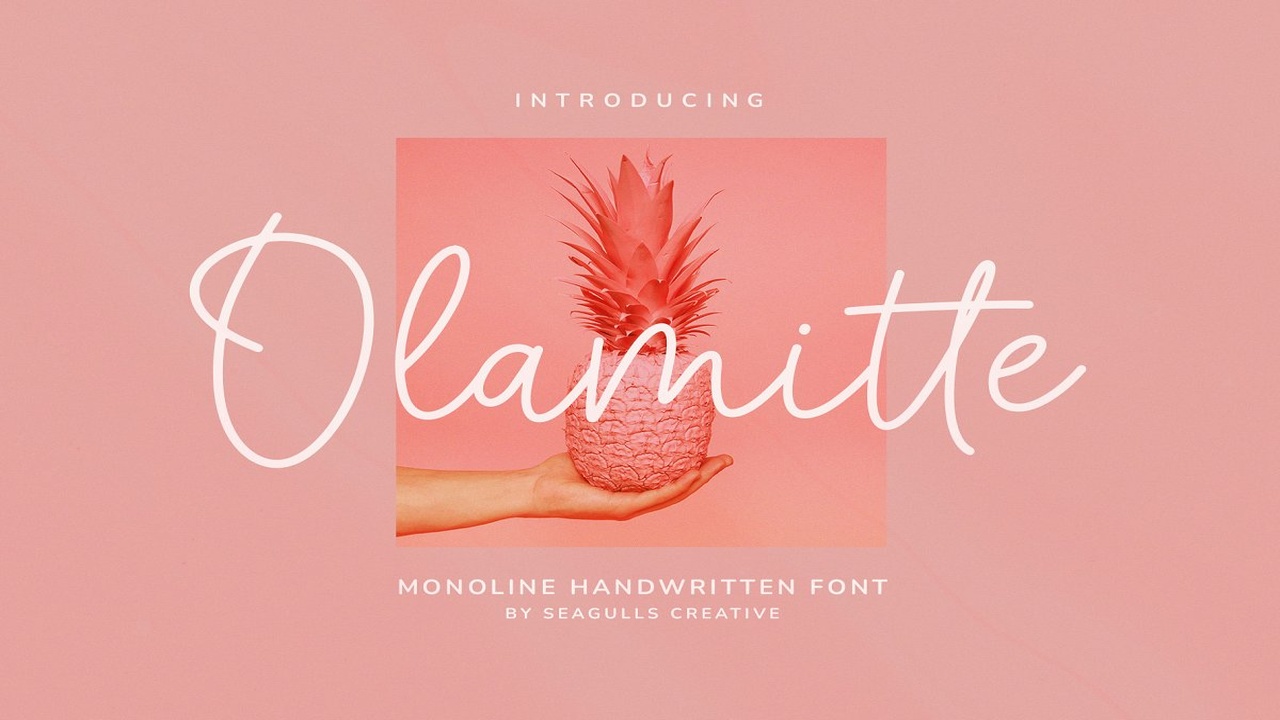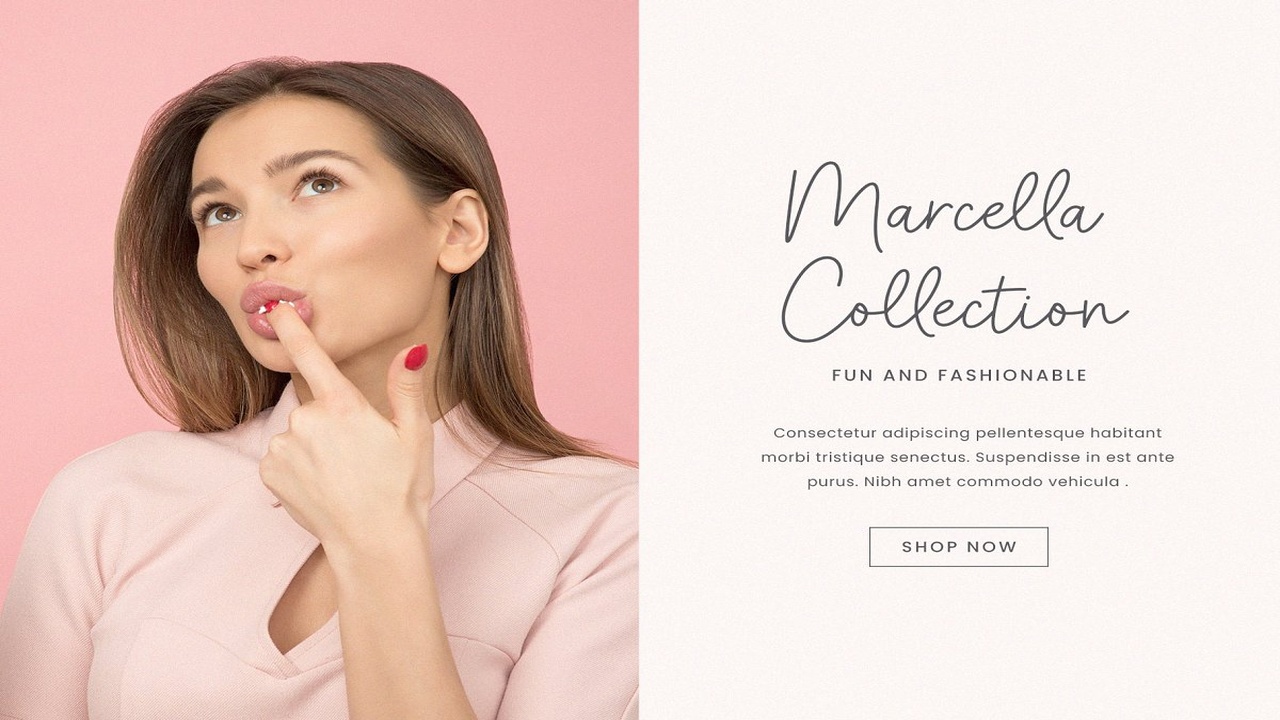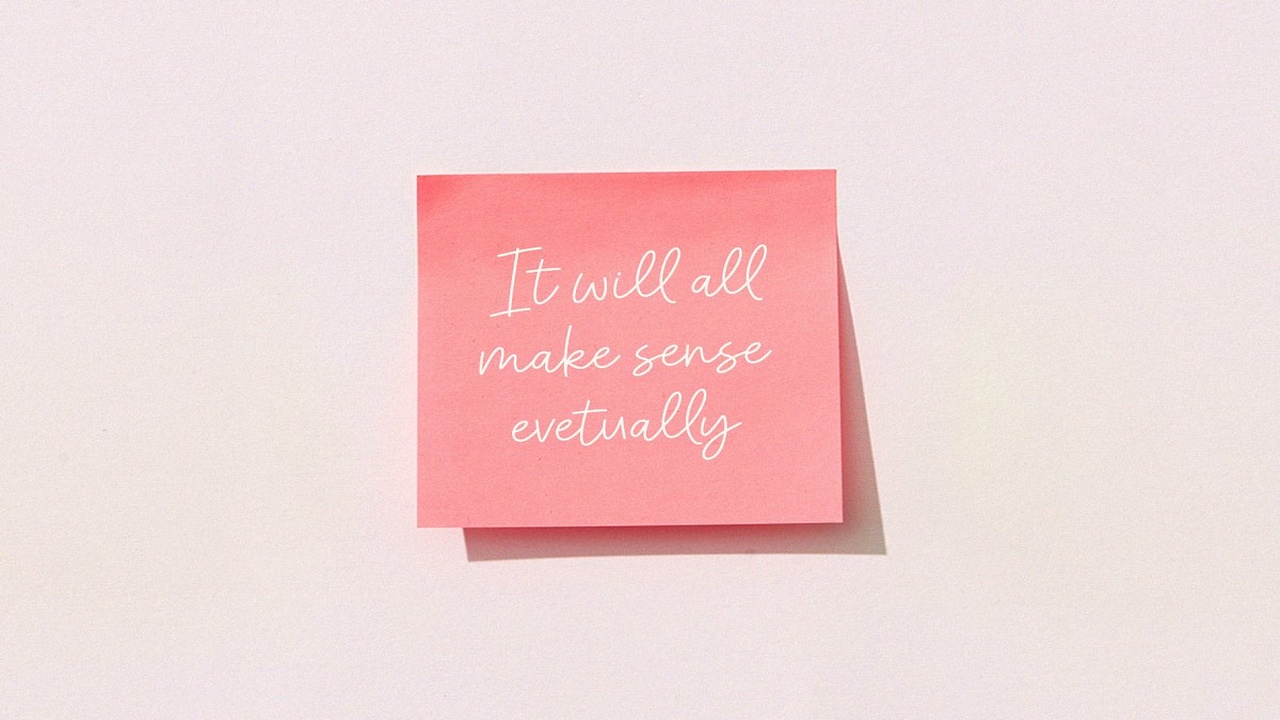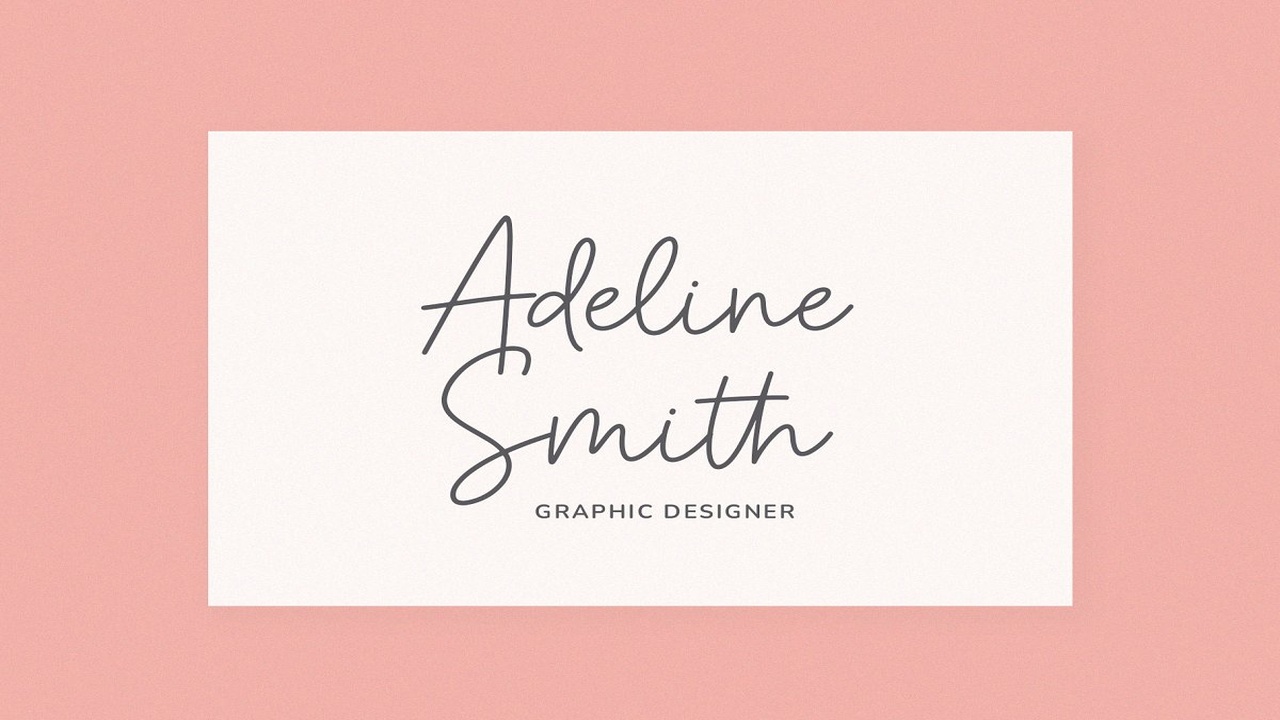
About the Olamitte Monoline Handwritten Font
Hello everyone, I would like to introduce Olamitte a monoline handwritten font with simple and natural cursive, Olamitte can be used for branding, labels, watermarks, photography, wedding invitations, stationery, social media posts, advertising, signatures, packaging, product design, and more, What you get:Olamitte OTFLetters, numbers, symbols, punctuation and ligatures Works on PC & MacSimple installationsAccessible in the Adobe Illustrator, Adobe Photoshop, Adobe InDesign, even work on Microsoft Word